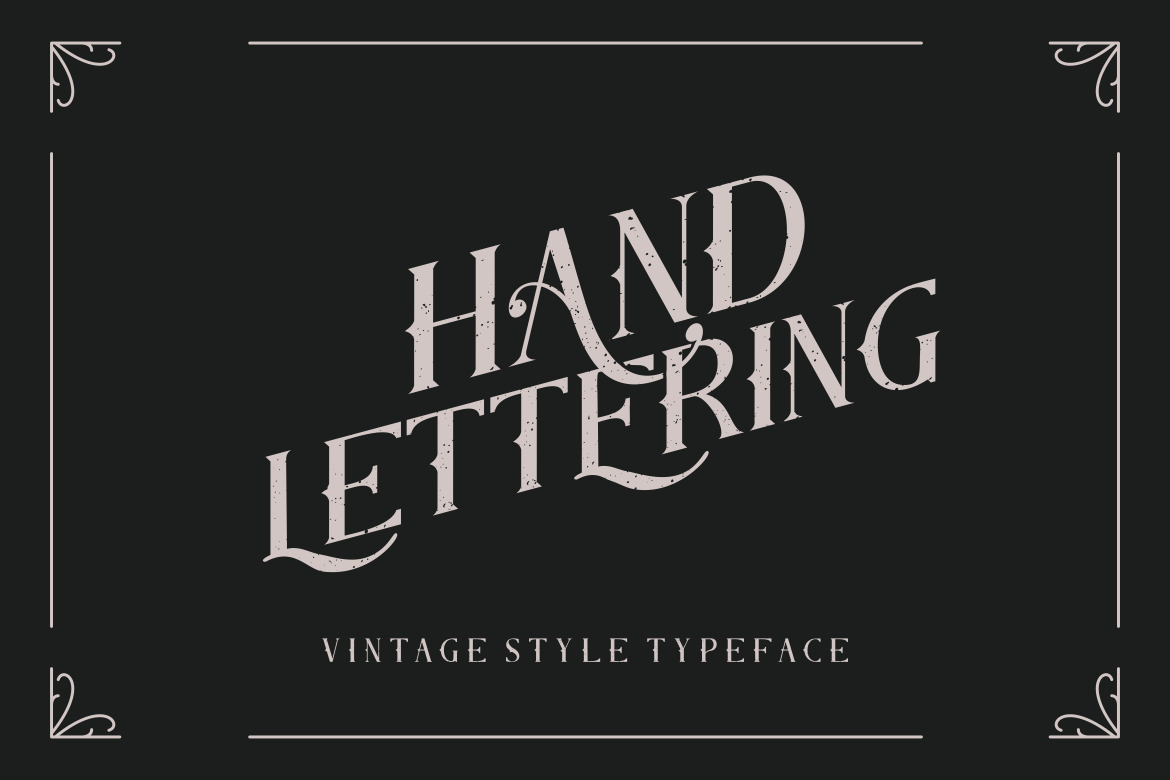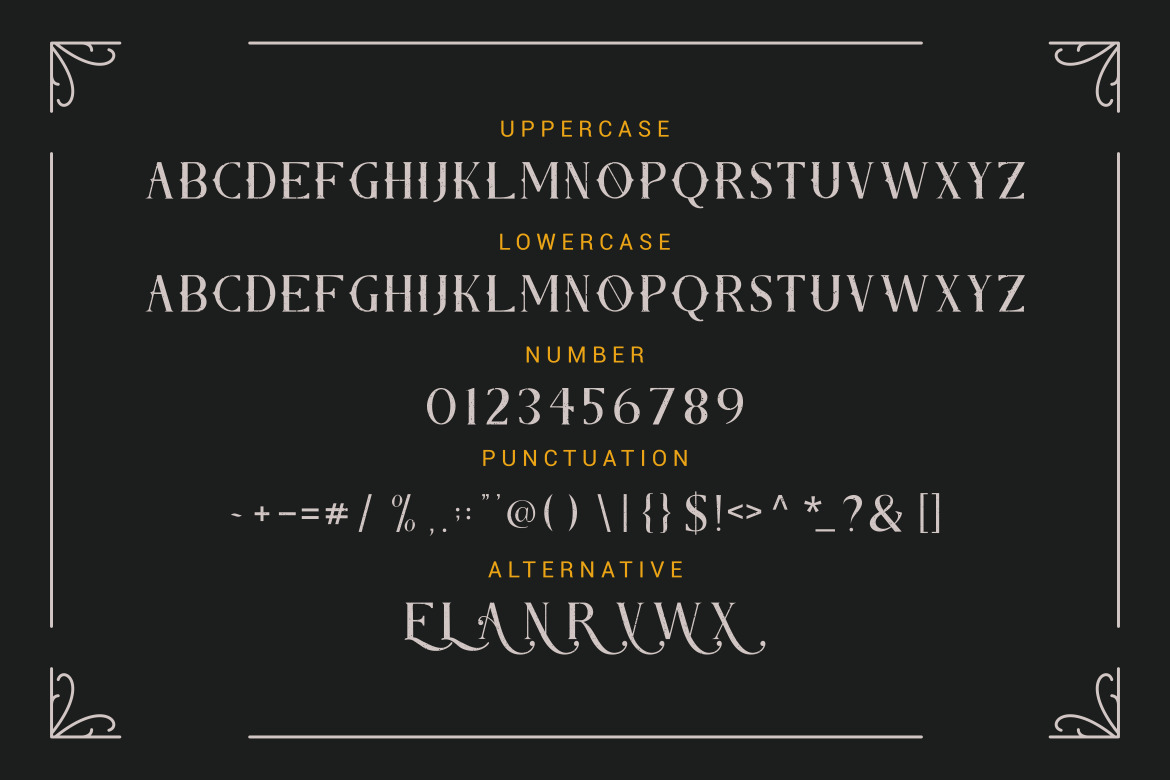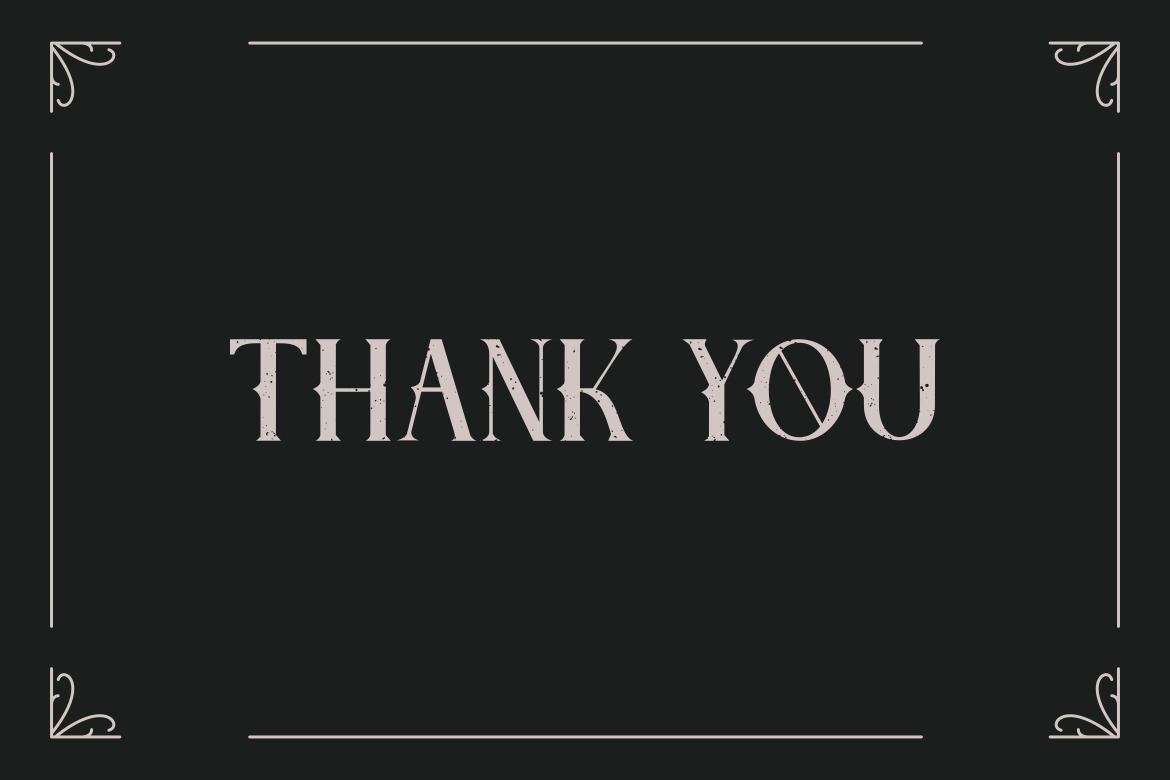
Rosean Kings Font
Presenting our new product **Rosean Kings Font** - Modern Font
**Rosean Kings Font** - Modern Font is a bold and authentic display font. This font is perfect for any branding project such as logos, t-shirt printing, creative products, and more. extraordinary in a variety of contexts.